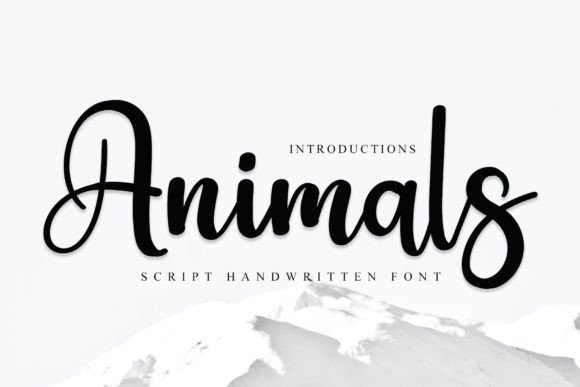
The Perfect Companion for Your Creative Journey
Have you ever been in the middle of a design project, staring at a blank page, and suddenly, a spark of inspiration hits you? The ideas start flowing, and your imagination runs wild. It’s moments like these that make being a designer so magical. But, what if I told you there’s a secret ingredient that can take your creations to the next level? Introducing the Animals Font, a modern and friendly handwritten font that’s about to become your new best friend.
This beautifully crafted font is more than just a pretty face; it’s a powerful tool that can elevate any project you throw at it. Whether you’re working on a children’s book, a social media campaign, or a branding strategy, the Animals Font has the potential to bring your ideas to life in a way that’s both engaging and authentic.
Animals Font Key Features
- Unique Characteristics: Hand-drawn illustrations and custom-designed characters for a whimsical and playful feel
Animals Font Review
I recently had the chance to work with the Animals Font, and I must say it’s an interesting choice for a font.
- The font is quite unique and can definitely add a playful touch to a design project.
- The various animal illustrations included with the font can be a great asset for a project that needs a lot of icons.
- The font is easy to read, even in larger sizes, which is a must-have for any font.
- The font is quite bold and may not be suitable for projects that require a more subtle look.
- The animal illustrations may not be detailed enough for some users, which can limit their usability.
- The font may not be ideal for text-heavy projects due to its playful nature.
The Animals Font is a great choice for projects that need a fun and playful touch, but may not be suitable for more serious or text-heavy projects. With its unique illustrations and easy-to-read design, it’s definitely worth considering for the right project.
Tips for Getting the Most Out of “Animals Font”
1. Use the font for creative projects, such as children’s books or pet-related designs.
2. Experiment with different font combinations to create unique and eye-catching designs.
3. Use the font in conjunction with images or illustrations to create engaging and interactive content.
1. Children’s book covers and illustrations.
2. Pet-related designs, such as pet food packaging or pet accessories.
3. Educational materials, such as worksheets or activity sheets.